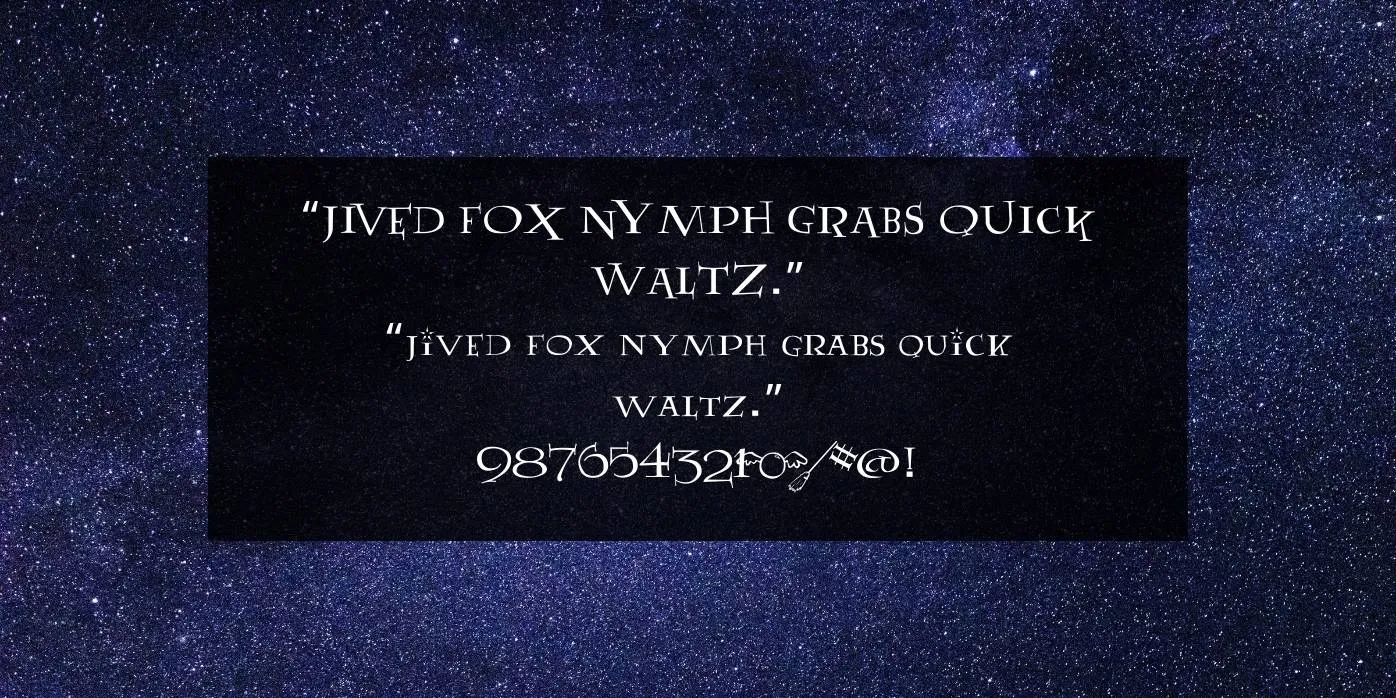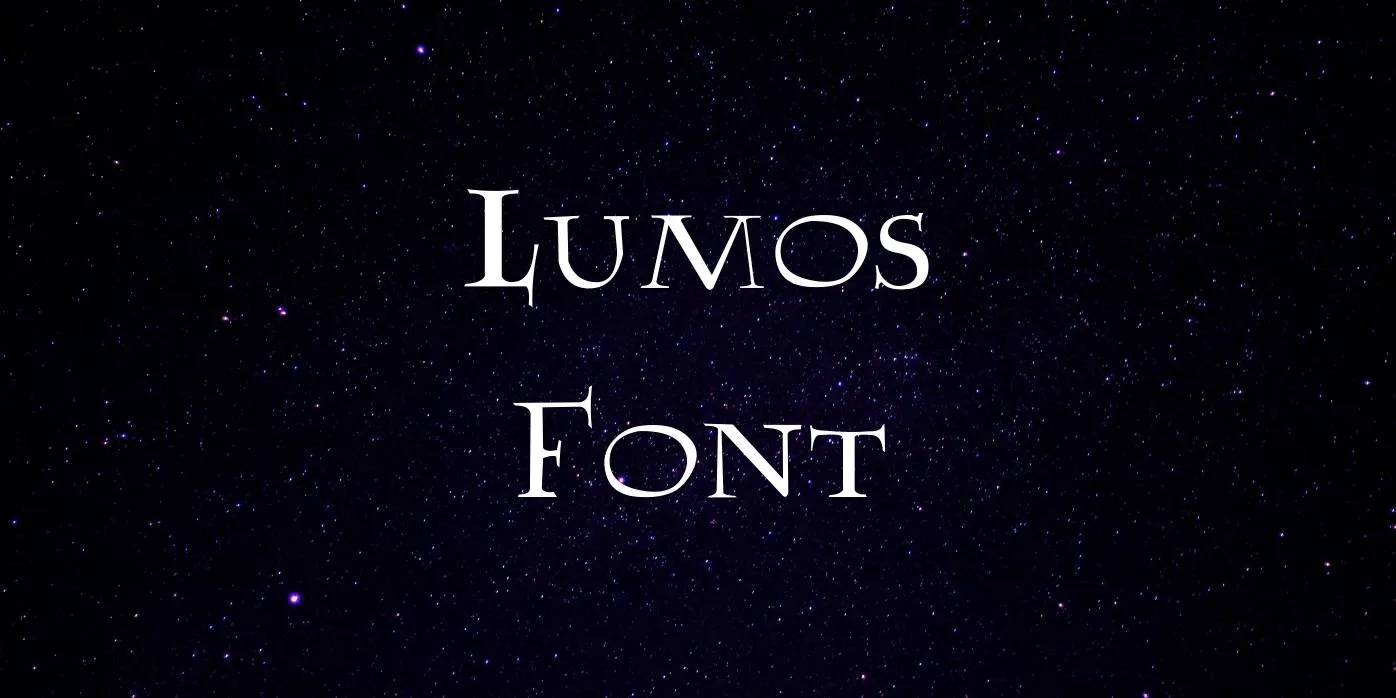
Lumos Font
Here, we introduce a modern typeface known as Lumos Font. The main developer of this family is CarpeSaponem. This typeface belongs to the fancy font family. You can use it for various purposes.
It is well specified for CSS. Lumos Font is a modern fancy typeface with a touch of modernity. The main aim of this designer is to create a unique and stylish font that can be used in various fields. This family includes 36 different styles.
Each style has its own unique character. This typeface is not included in google fonts. Another similar font which is bosox font is perfect for different designs. You can use this font for both personal and commercial purposes.